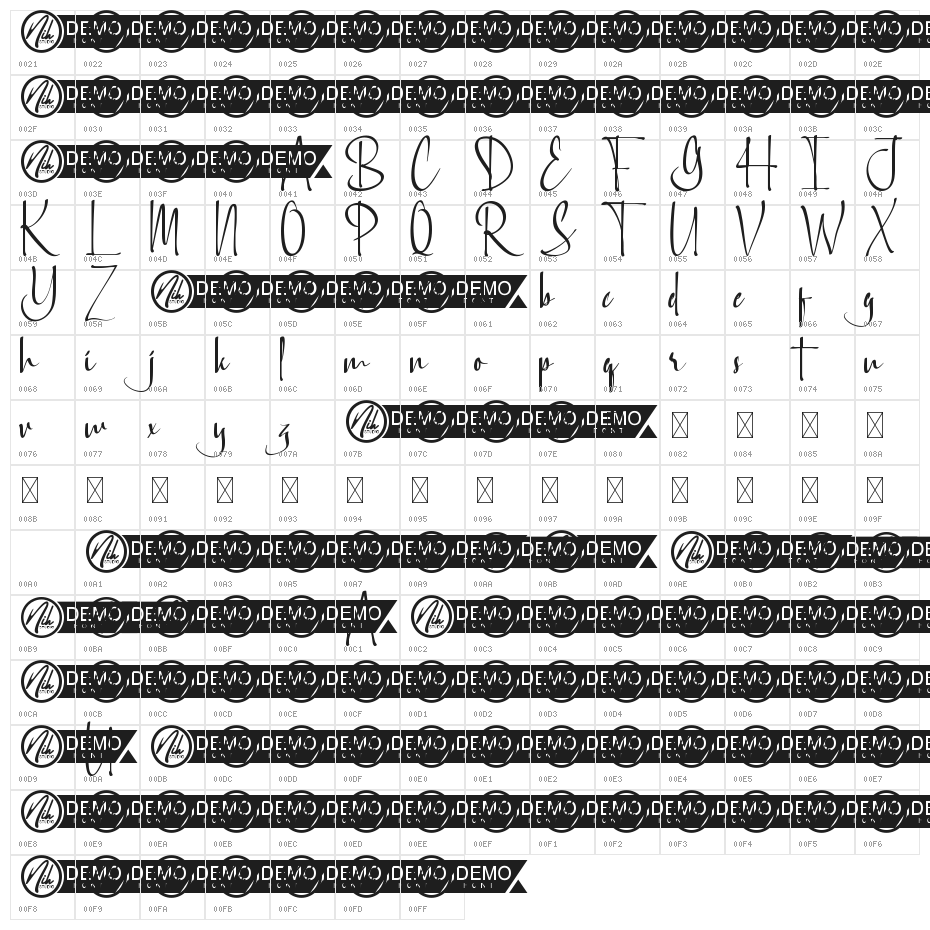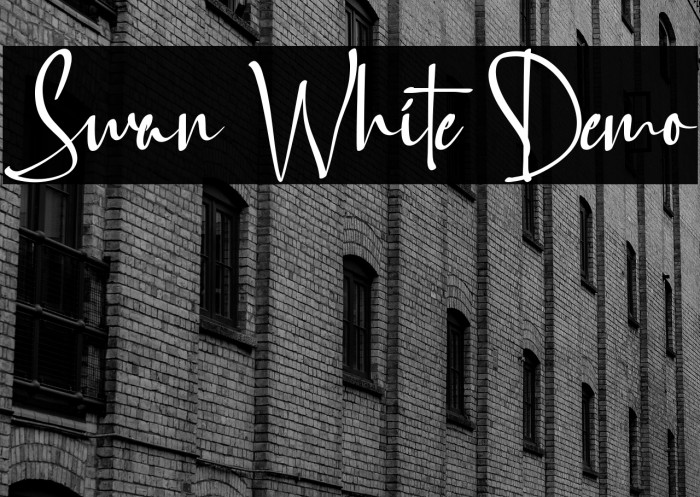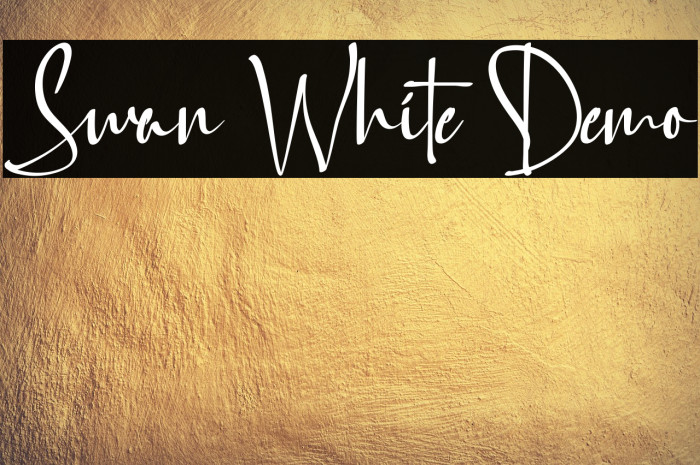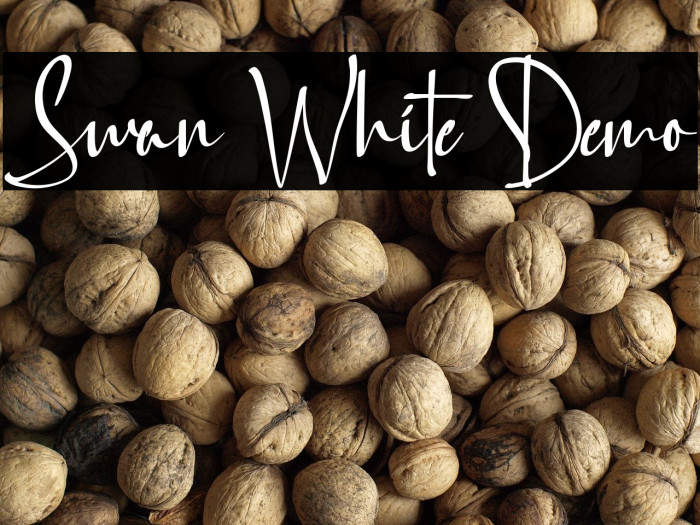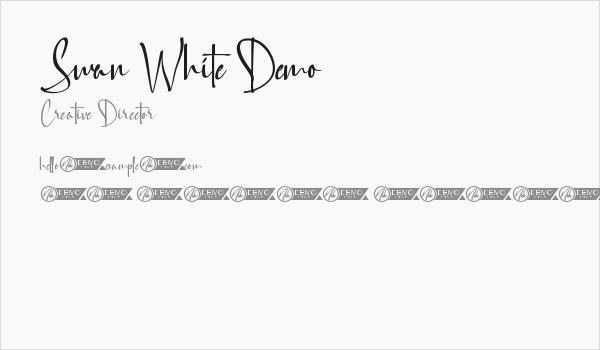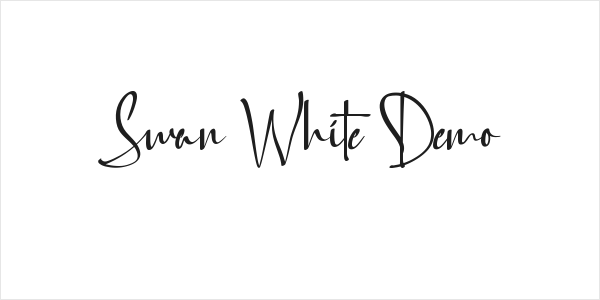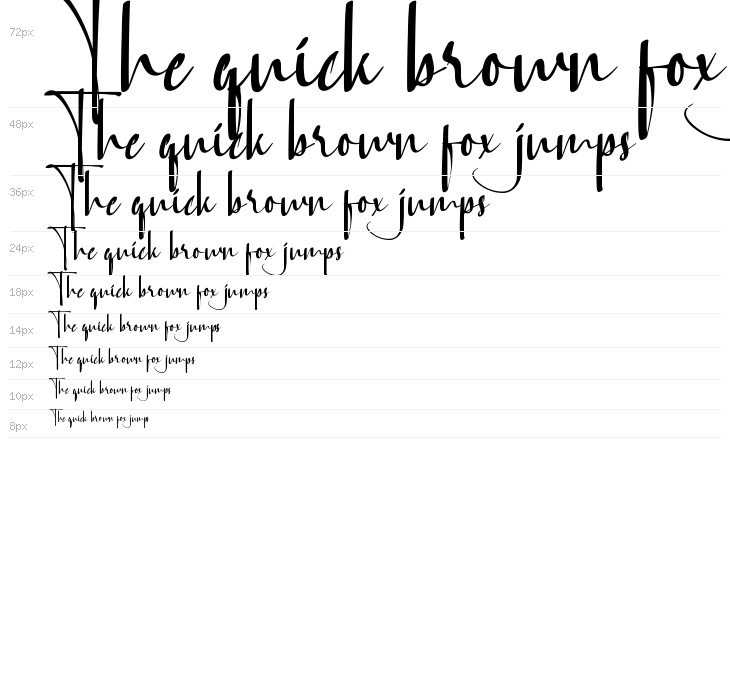
Swan White Demo Font
Swan White Demo Description
This font features a unique blend of elegance and modernity, characterized by its flowing, cursive style. The uppercase letters are tall and slender, with a slight slant that adds a dynamic feel. The lowercase letters are more expressive, with sweeping curves and loops that create a sense of movement. The font has a hand-drawn quality, giving it a personal and artistic touch. It is versatile, suitable for both formal and informal applications, and can add a sophisticated flair to any design. The contrast between thick and thin strokes is moderate, enhancing readability while maintaining an artistic appearance.